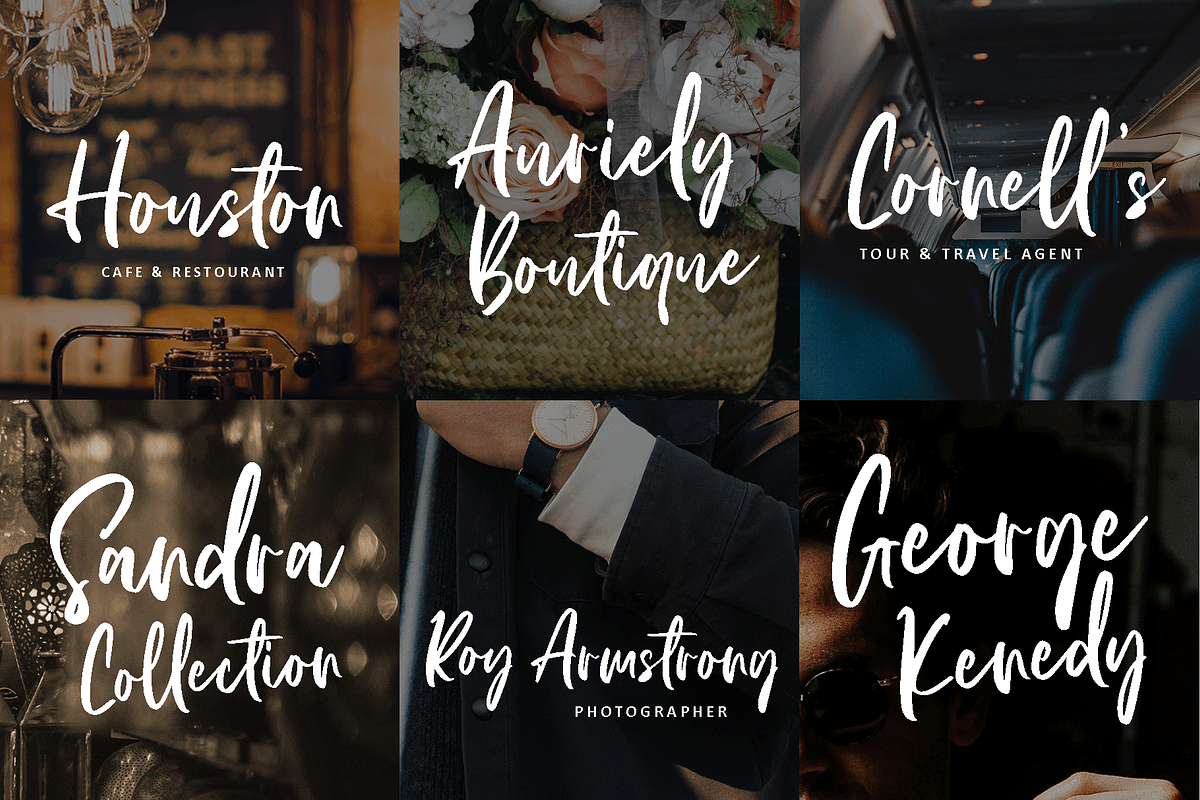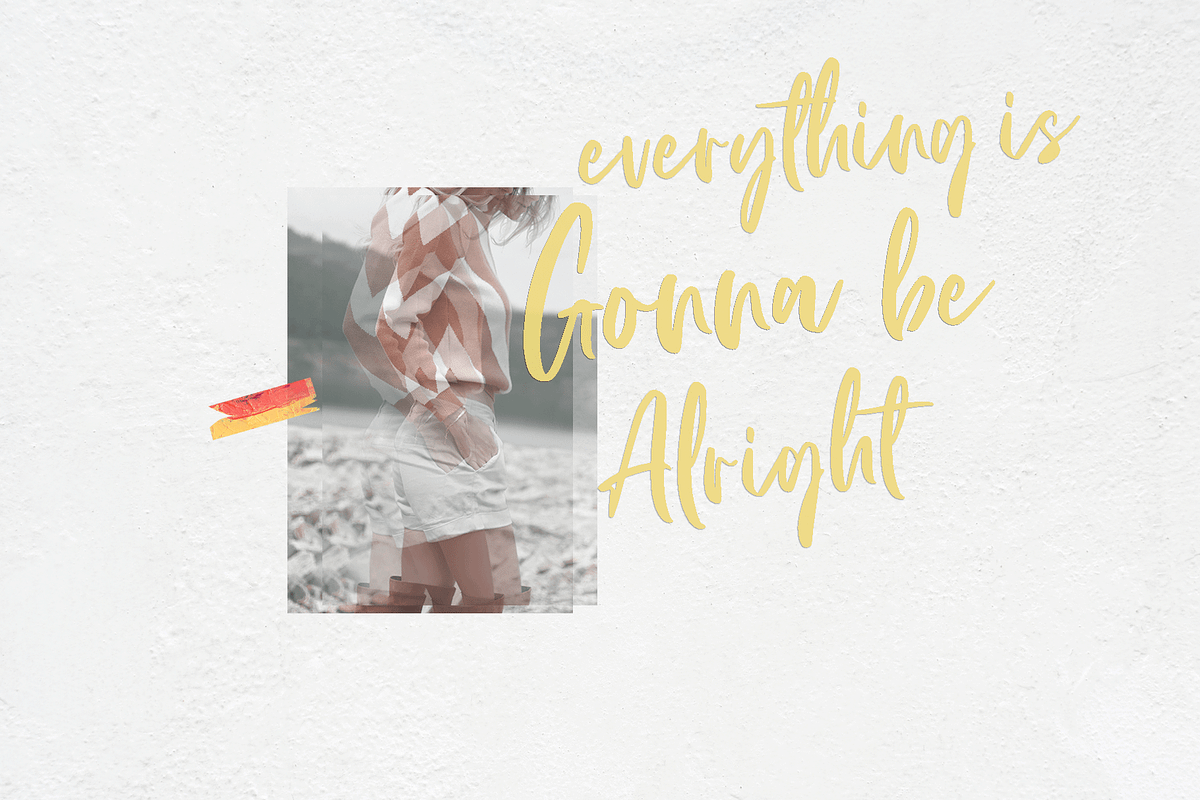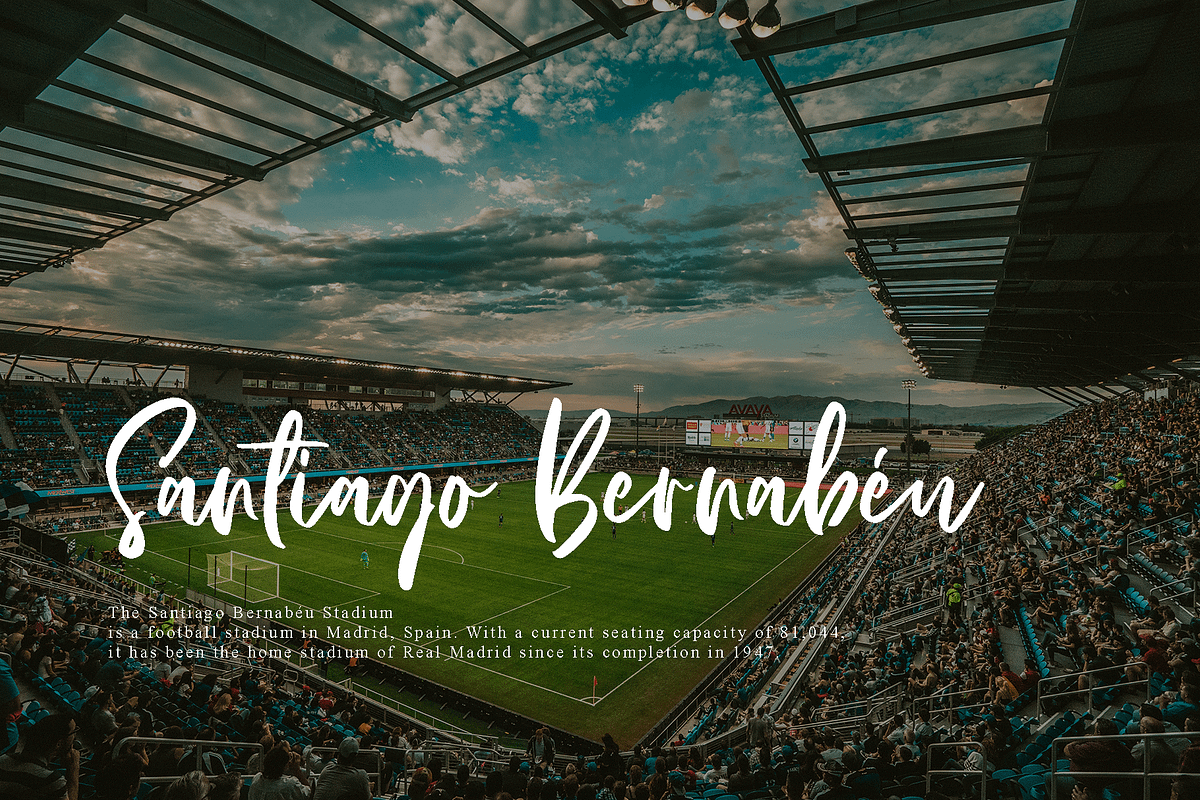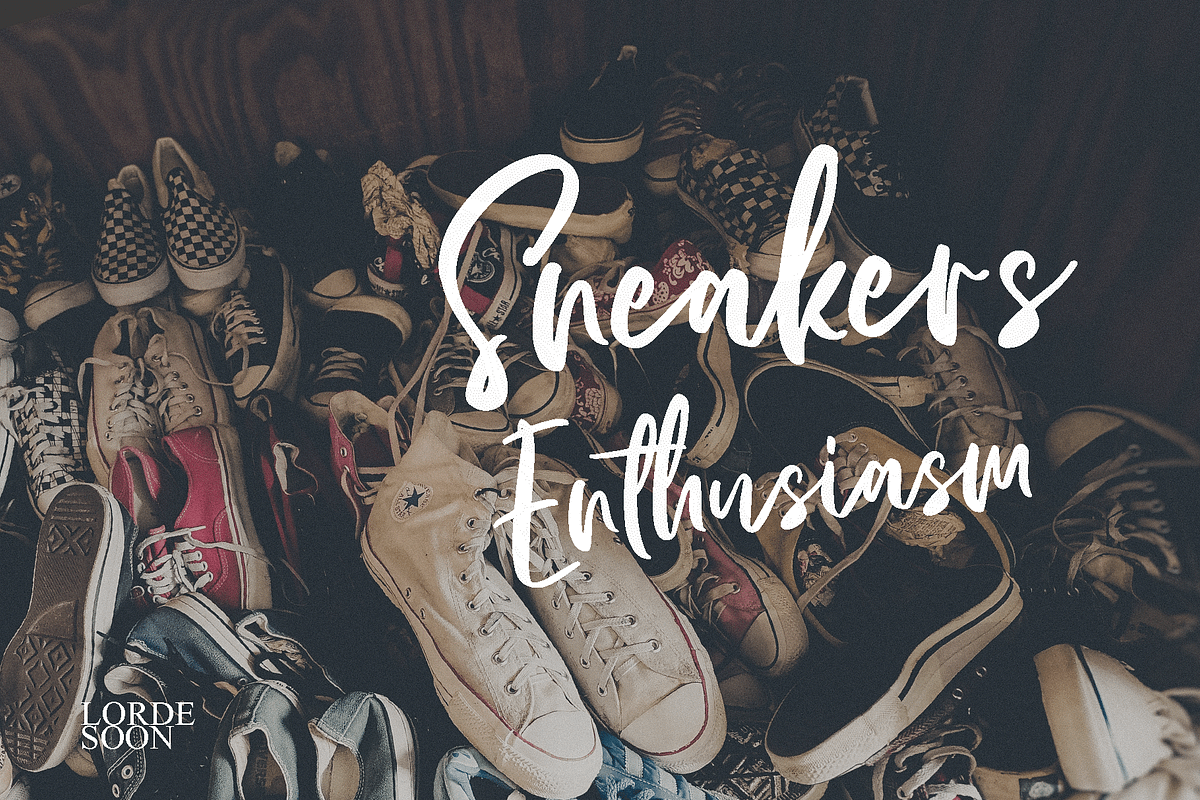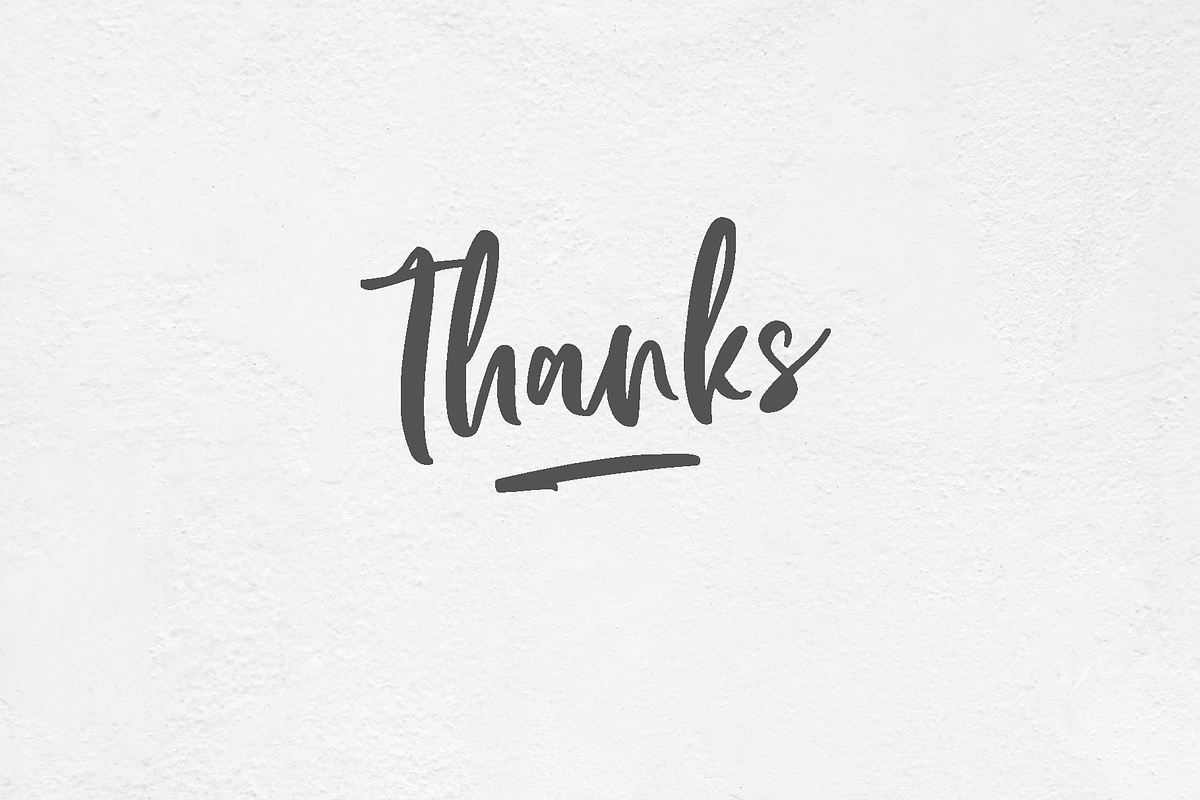
Lorde Soon - Elegant font
Lorde Soon is an elegant script type font because this font has a very good width in each letter. and this makes fonts usable in all media and objects. This font is very suitable for use Logotype / Branding because it looks dashing and can also be product of packaging, quotes, watermark, business cards, wedding designs, everything related to advertising and more.